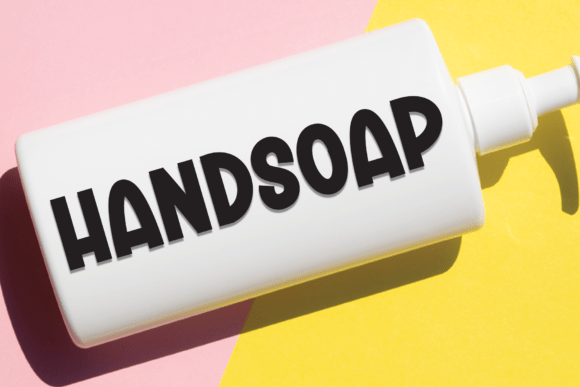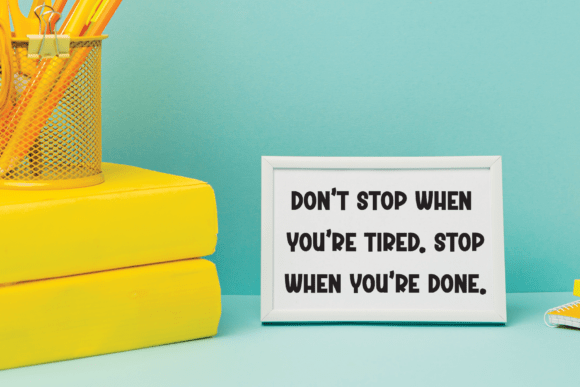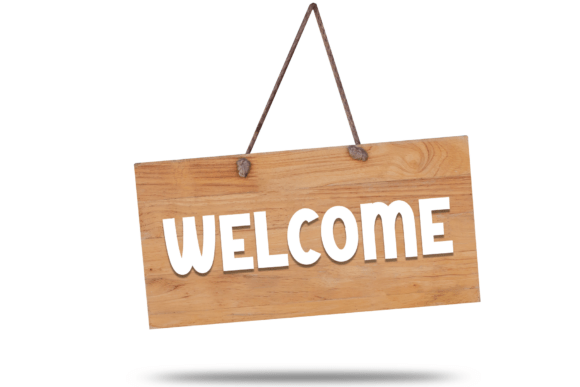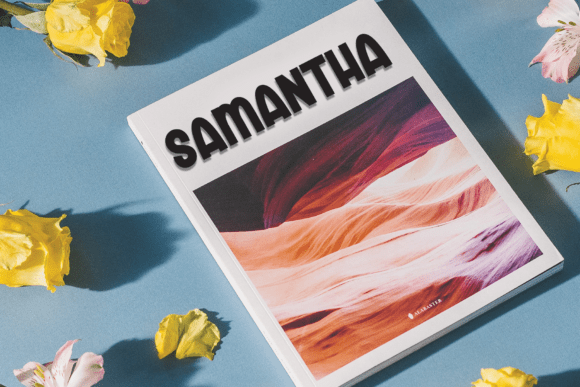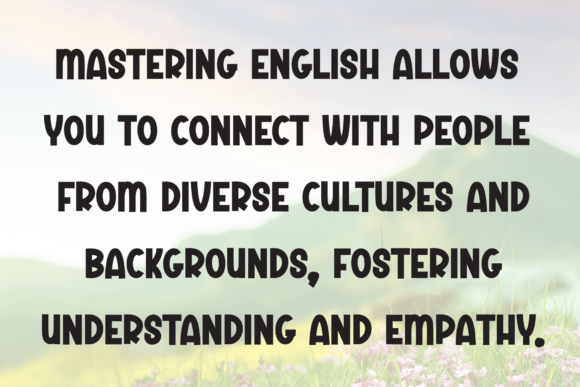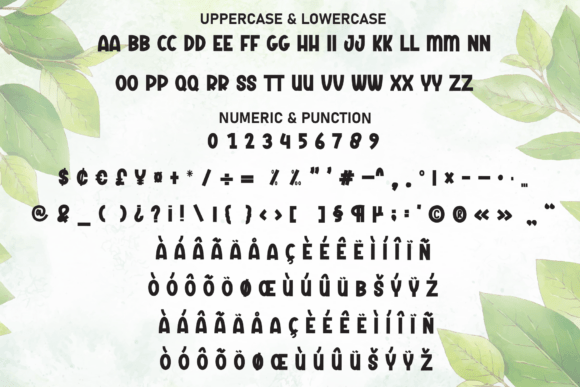
Introducing Happy March: The Perfect Font for Springtime Designs
As the winter chill begins to fade, and the warmth of spring approaches, designers and crafters are on the lookout for fresh and inspiring typography to bring their projects to life. That’s where Happy March comes in – a bold and cheerful display font that’s specifically designed to capture the essence of the season. With its smooth curves, playful shapes, and hint of script influence, Happy March is the perfect addition to any design that needs a burst of energy and positivity.
A Font that’s Full of Joy and Personality
Happy March is more than just a font – it’s an attitude. It’s a way to express your creativity and add a dash of fun to your designs. Whether you’re working on seasonal projects, greeting cards, planners, social media posts, or creative branding, this font is sure to bring a smile to your audience’s faces. Its unique blend of modern style and playfulness makes it an excellent choice for designers who want to create something truly special.
Key Features of Happy March
- Smooth Curves: Happy March features smooth, flowing curves that give it a friendly and approachable feel.
- Playful Shapes: The font’s playful shapes add a touch of whimsy and fun to any design.
- Script Influence: A hint of script influence gives Happy March a personal and creative feel.
- Bold and Cheerful: This font is designed to make a statement, with bold and cheerful lettering that’s sure to grab attention.
Perfect for Springtime Designs
Happy March is specifically designed to capture the essence of spring, making it the perfect choice for seasonal projects. Whether you’re creating designs for Easter, Mother’s Day, or simply want to welcome the new season, this font is sure to bring a fresh and positive vibe to your work. Its bright and cheerful personality is guaranteed to put a smile on your audience’s faces and leave a lasting impression.
Use Happy March in Your Designs
Happy March is a versatile font that can be used in a wide range of design projects, including:
- Seasonal Projects: Use Happy March to create festive designs for Easter, Mother’s Day, or other springtime celebrations.
- Greeting Cards: Add a personal touch to your greeting cards with Happy March’s playful and cheerful lettering.
- Planners: Bring a burst of energy to your planners and organizers with Happy March’s bold and colorful font.
- Social Media Posts: Use Happy March to create eye-catching social media posts that are sure to grab attention.
- Creative Branding: Add a touch of personality to your brand with Happy March’s unique and playful font.
Why Choose Happy March?
With so many fonts to choose from, why choose Happy March? Here are just a few reasons why this font stands out:
- Unique Personality: Happy March has a unique and playful personality that’s sure to set your designs apart.
- Versatility: This font can be used in a wide range of design projects, from seasonal projects to creative branding.
- Easy to Read: Despite its playful nature, Happy March is easy to read and understand, making it perfect for designs that need to communicate a message.
In conclusion, Happy March is a bold and cheerful display font that’s perfect for springtime designs. With its smooth curves, playful shapes, and hint of script influence, it’s sure to bring a fresh and positive vibe to any project. Whether you’re a designer or crafter, Happy March is an excellent choice for anyone looking to add a touch of personality and fun to their designs. So why wait? Download Happy March today and start creating your own unique and inspiring designs!